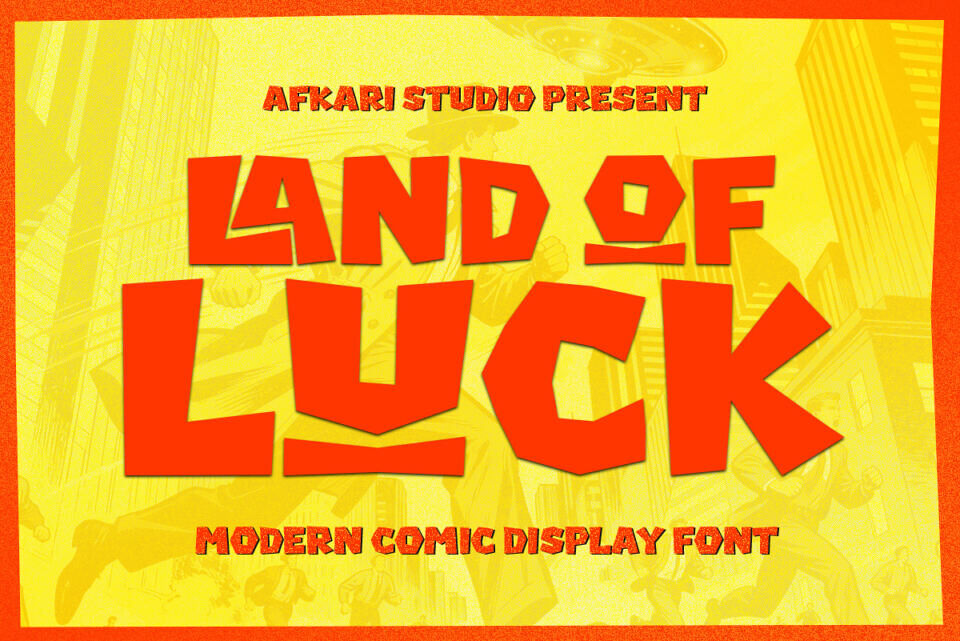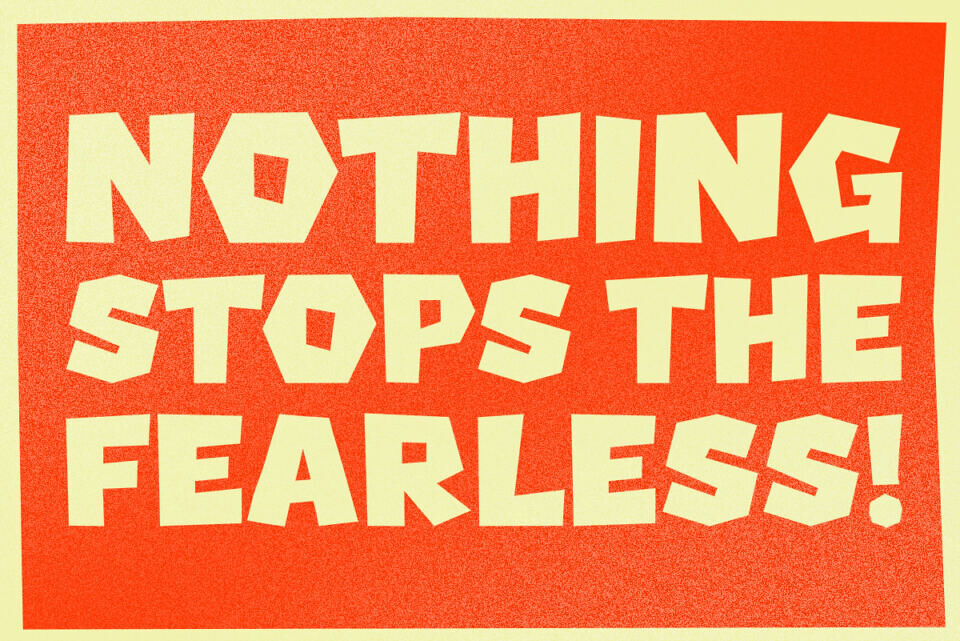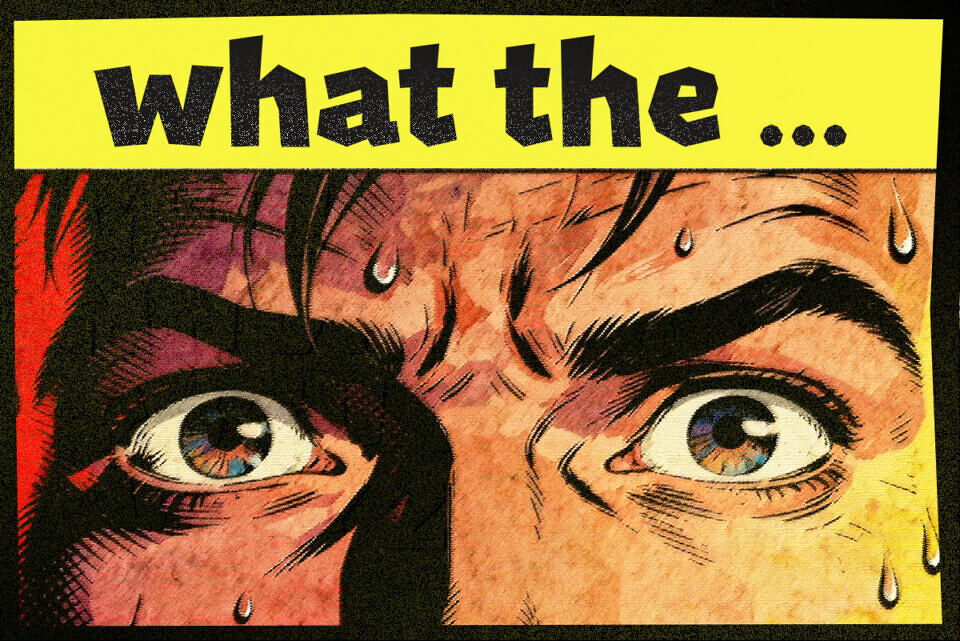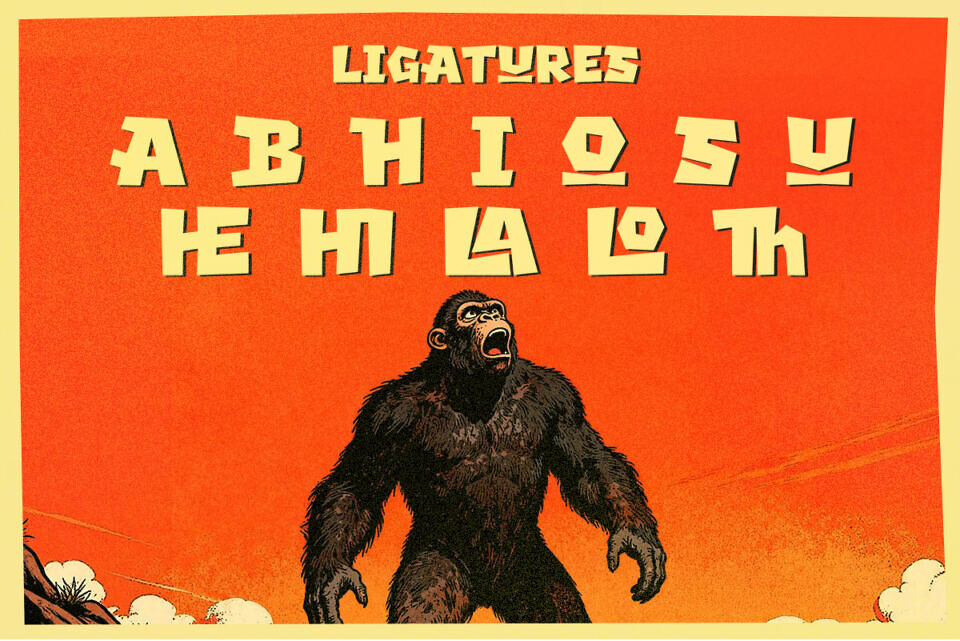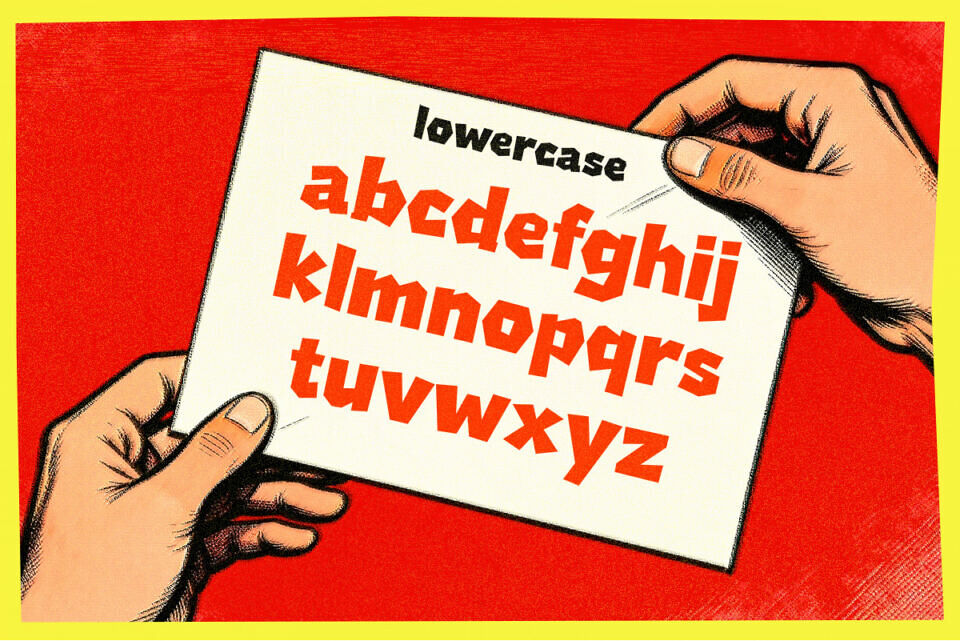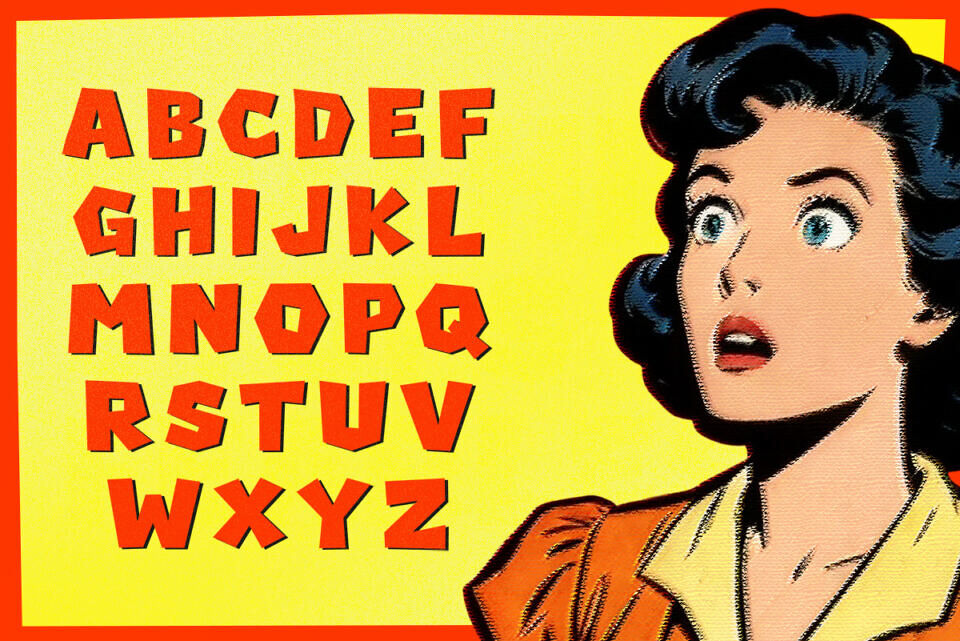
Land of Luck is a fun and energetic modern comic display font designed to bring joy, playfulness, and bold personality into your designs. With chunky shapes, smooth curves, and a friendly cartoon-inspired style, this font delivers a lively look that instantly grabs attention.
Perfect for creative projects that need a cheerful and approachable vibe, Land of Luck works beautifully for kids designs, comics, posters, branding, packaging, social media content, and playful headlines. Its modern comic style keeps the font fresh and versatile—fun without feeling childish.